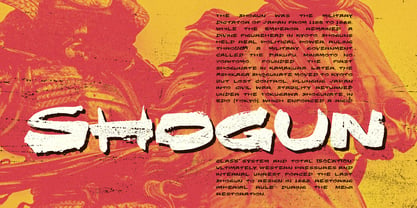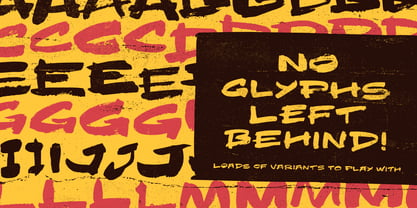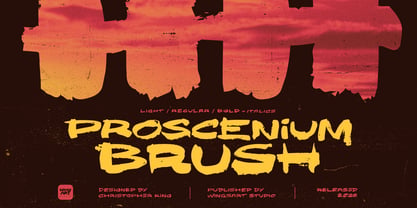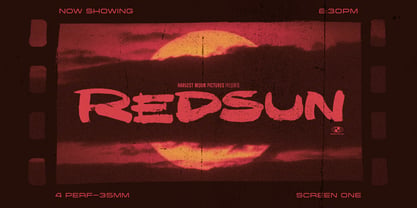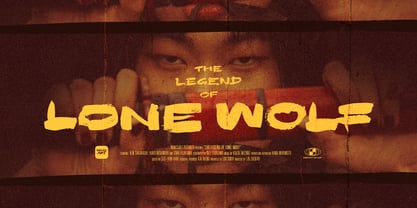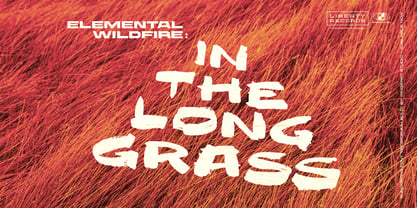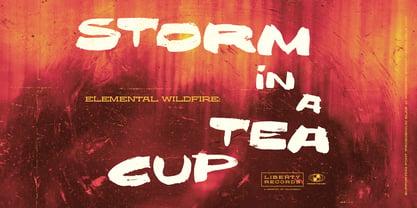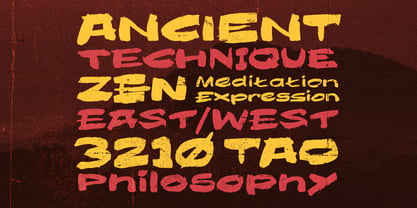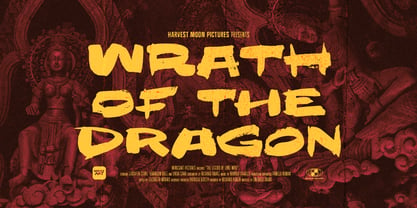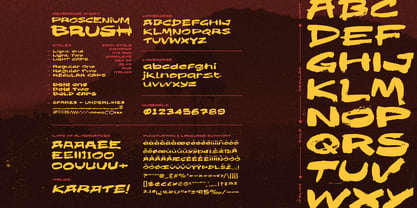
Proscenium Brush
Proscenium Brush - Zen and the Art of Brush Fonts
Proscenium Brush is the fifth member of the Proscenium series, taking the established rules and loosening them up with a swift dose of ink and paint! The result is a font destined for martial arts and grindhouse movies, with an epic presence that embraces the magic in human hands and rejects digital perfection.
Using ancient techniques passed down through generations, you too can master the art of movie titles using these hand-drawn letters, and achieve enlightenment through the hidden forms held within. Search and you will find limitless skill at your fingertips while your opponents marvel at the dexterity of your headers!
Defeat uninspired design by applying your teaching to video games (obviously beat-em-ups), movie titles (ninjas!), album covers (it works surprisingly well on non-ninja stuff too), magazine articles, socials, and more.
It comes in three weights: Light, Regular, and Bold, each with two versions plus matching italics. All include complete uppercase and lowercase alphabets, numerals, punctuation, symbols, and multilingual support. Each font also comes with a complete set of alternatives for a masterful level of customisability. Add to this an additional Spares font (no glyphs left behind!) and Underlines, and you've got yourself a truly powerful tool.
Christopher King (aka Wingsart Studio) is a Graphic Designer specialising in hand-drawn lettering for film and television titles. From blockbuster films to indie press, Wingsart Studio fonts have appeared on screens big and small around the globe. His work has been used by companies including Disney, Marvel, Apple, Netflix and Paramount Studios.The Wingsart Studio philosophy is to embrace the imperfections inherent with real pens, pencils, paper and brush. In counter-balance to an AI driven age, these fonts remain refreshingly analogue and proud of their human touch. Before a single letter turns into a digital product, countless hours are spent researching and sketching out ideas in pursuit of those perfect lines and shapes.